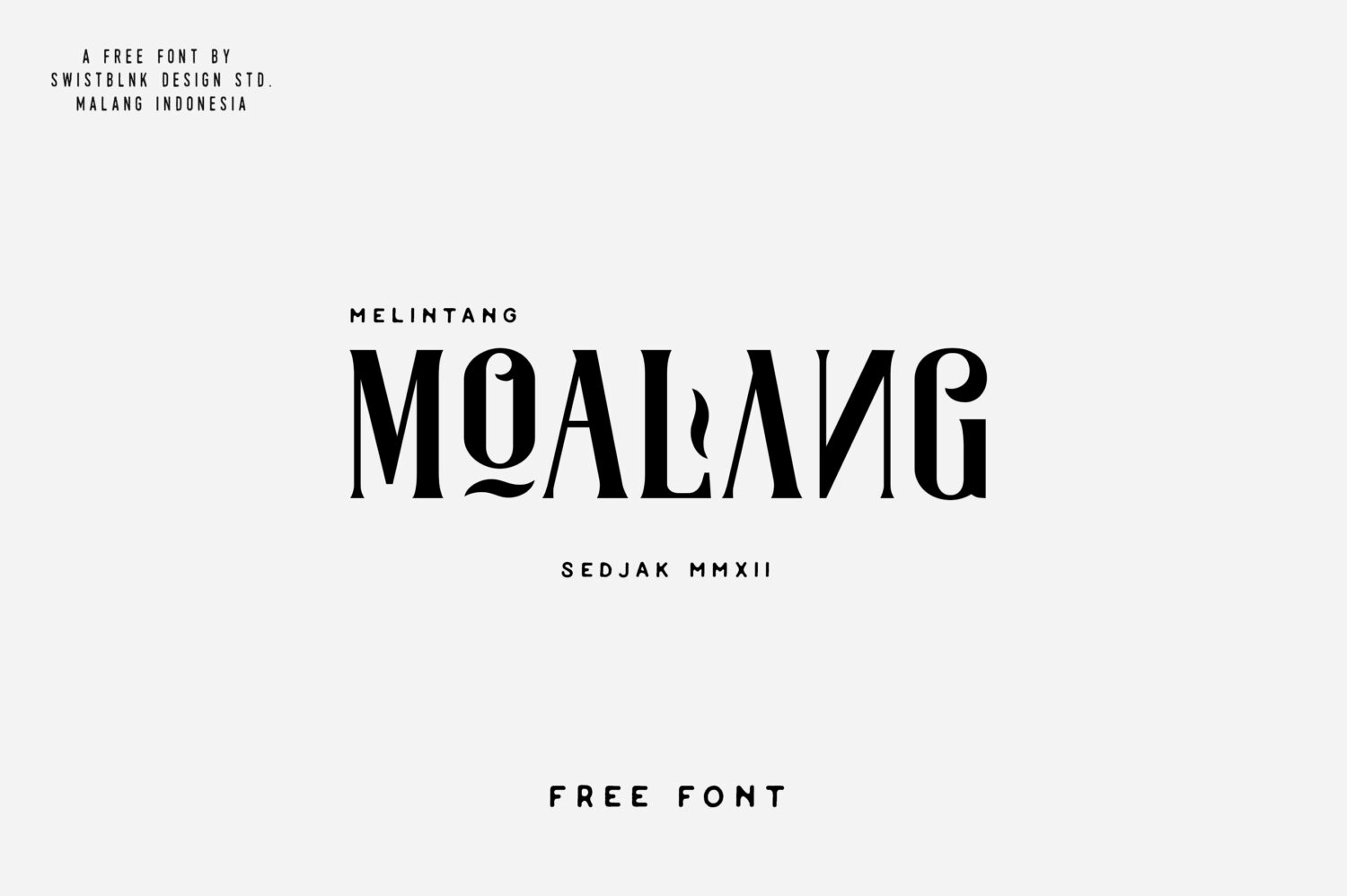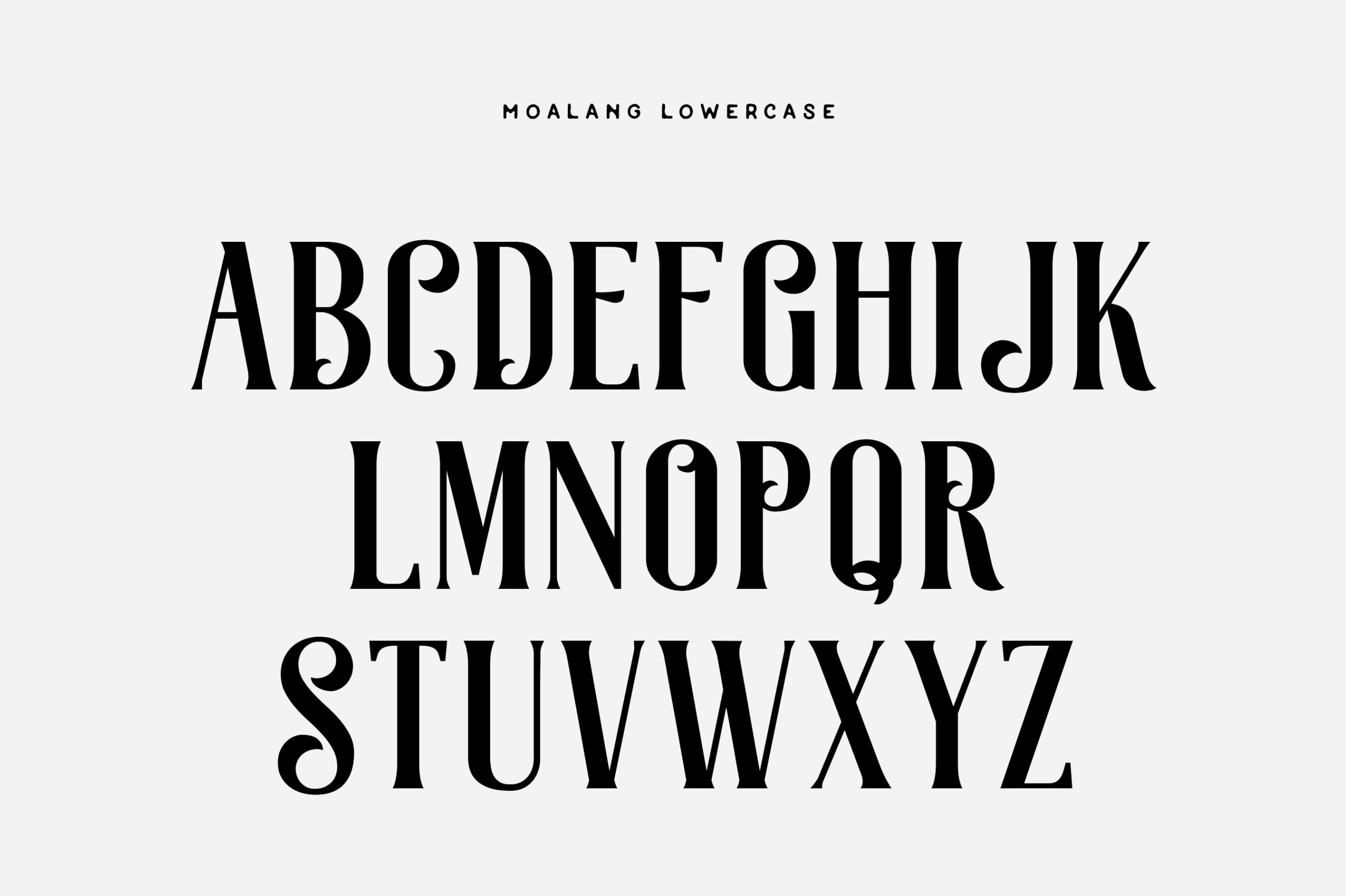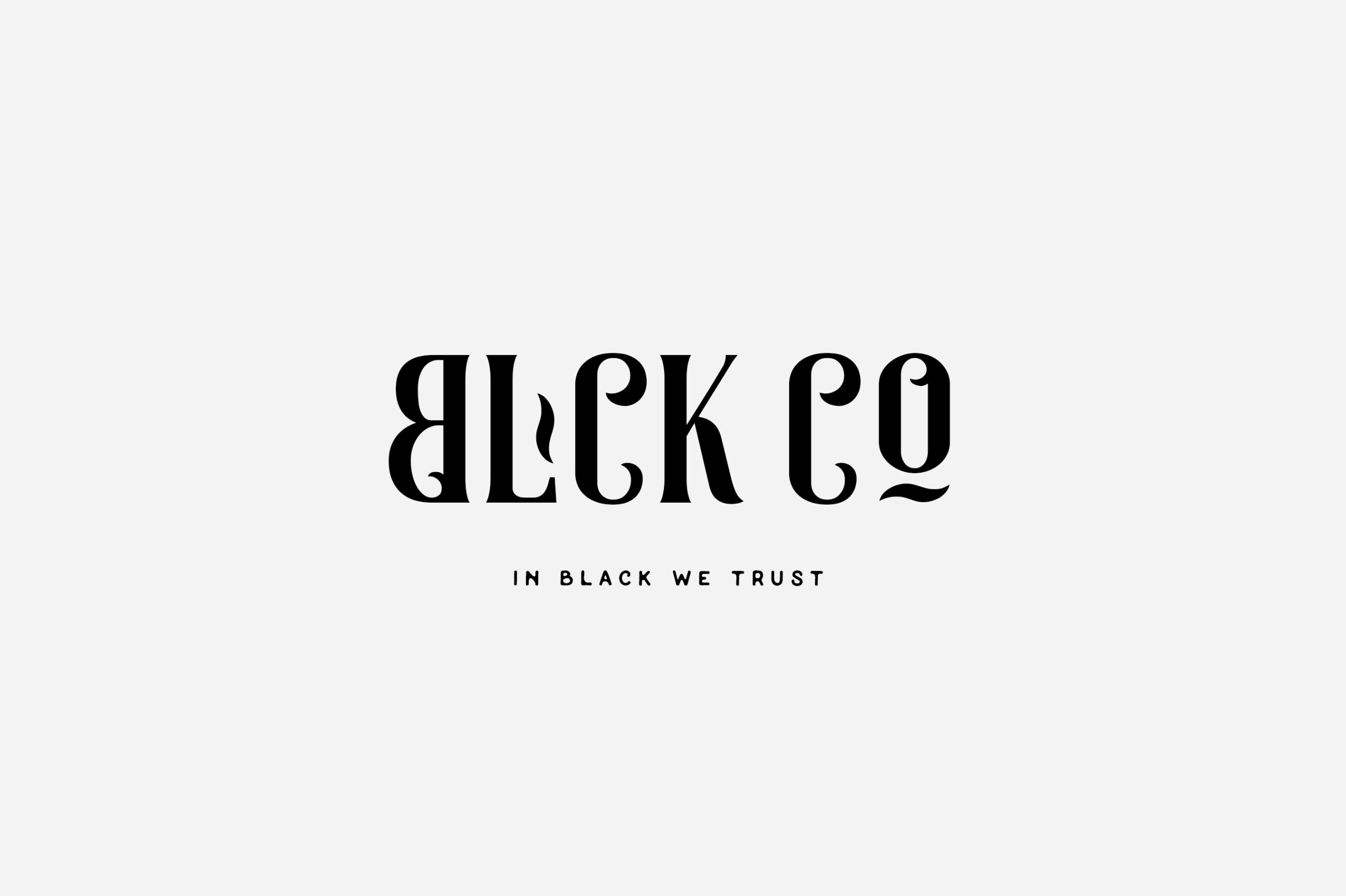
Moalang Free Font
Moalang is a classic serif font that will give your design a retro or vintage touch! elegant yet classy, this font is perfect for your next creative works; logo design, brand, t-shirt and apparel and a lot more!